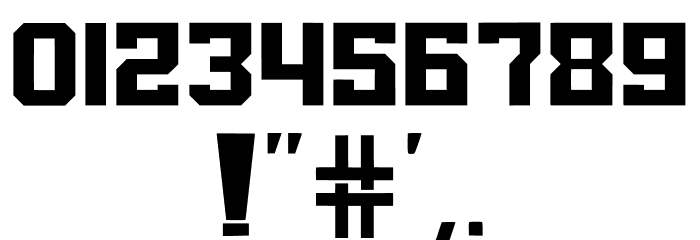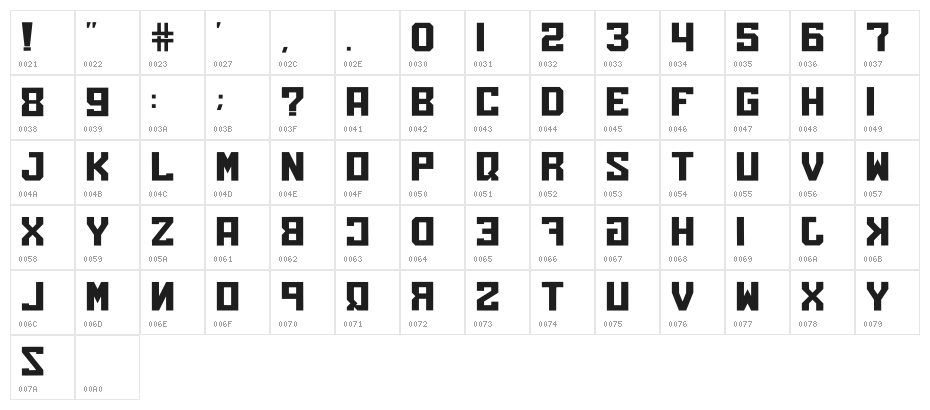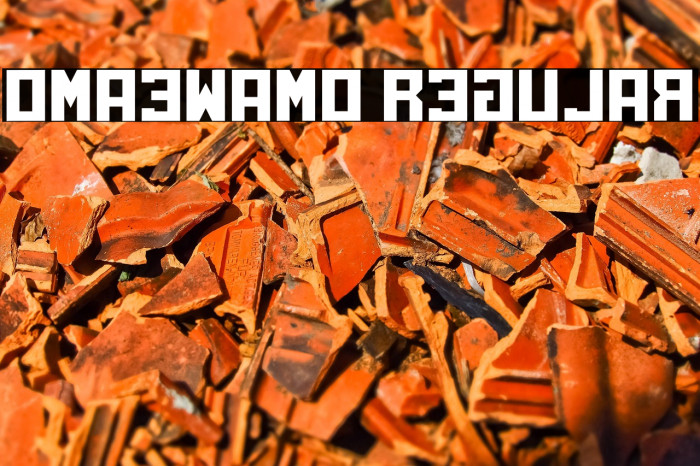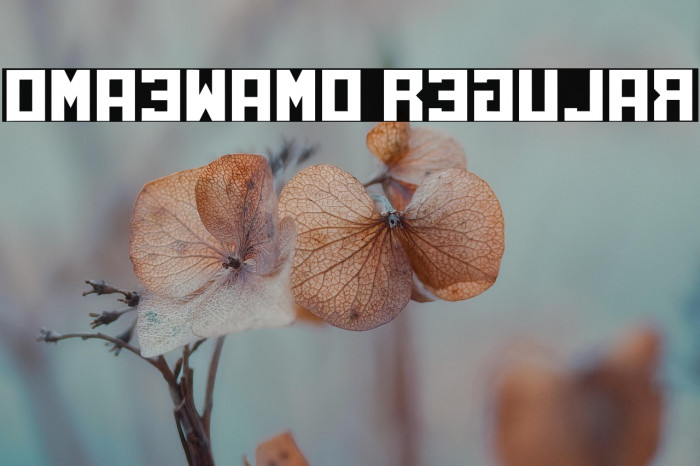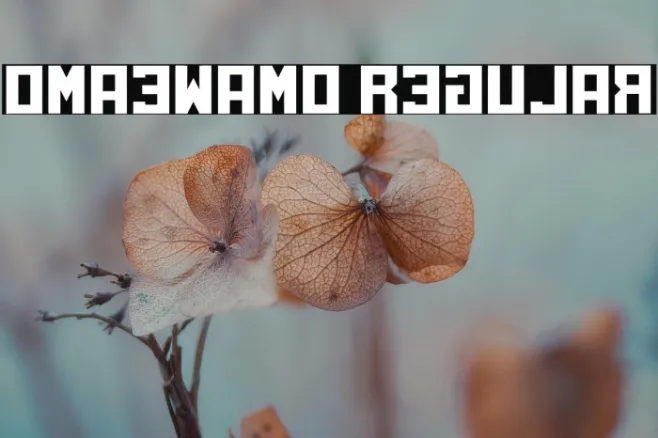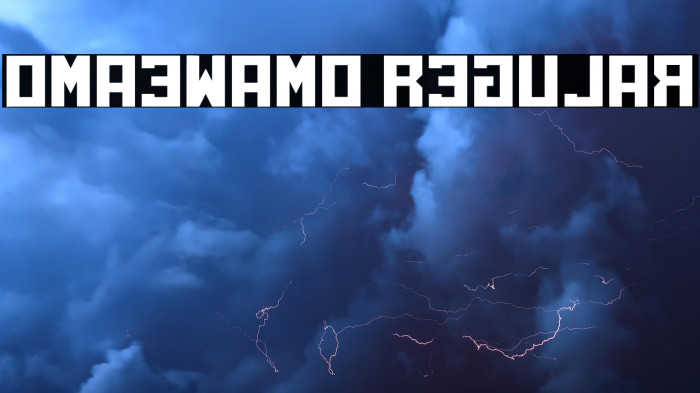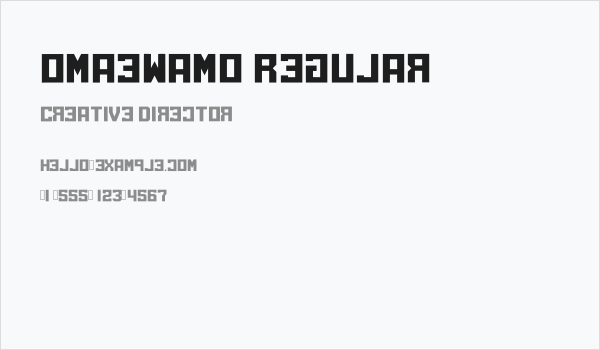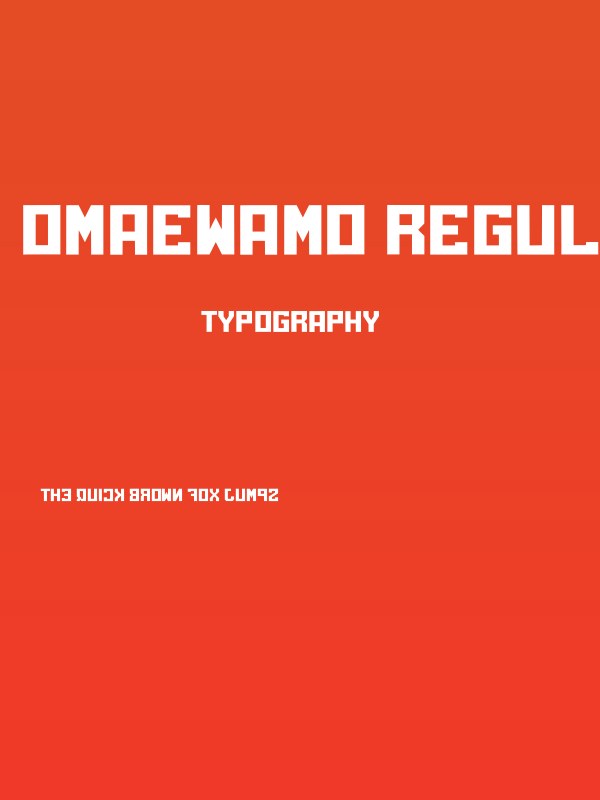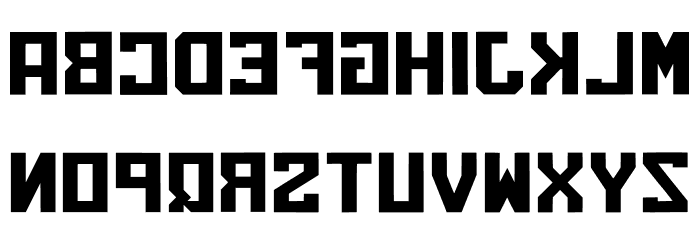
Omaewamo Regular Font
Omaewamo Regular Description
This font features a bold, geometric design with strong, angular lines and a modern aesthetic. The uppercase letters are characterized by their blocky, robust structure, giving them a commanding presence. The lowercase letters maintain the same boldness, ensuring consistency across the typeface. Numbers are equally bold, with a uniform height that aligns well with the uppercase letters. Special characters are designed to match the overall style, providing a cohesive look. The font's thick strokes and angular edges make it highly legible and impactful, suitable for attention-grabbing designs.